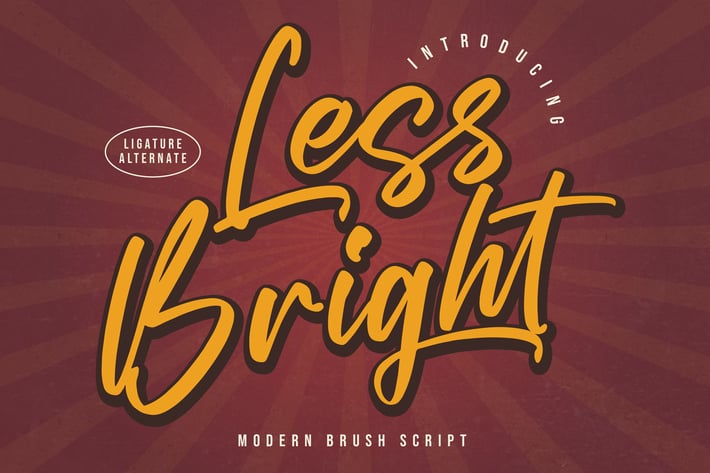
Less Bright Modern Brush Script Font
Less Bright is a high-energy brush script with bold, textured strokes and a gritty modern vibe. The lively letterforms and confident rhythm deliver instant impact, making headlines shout and logos pop. Perfect when you want that street-smart attitude—loud, fast, and unmistakably hand-painted.
+ Natural brush texture with dynamic contrast
+ Uppercase, lowercase, numerals & punctuation
+ Stylistic alternates/ligatures for organic flow
+ Extended swashes for expressive wordmarks
+ Clean kerning & smooth spacing for pro output
+ Optimized for print and screen at common sizes
+ Impact posters & event flyers
+ Streetwear & apparel prints
+ Sports and gym graphics
+ Barbershop branding & signage
+ Café/food-truck menus
+ Stickers, labels & packaging
+ YouTube thumbnails & channel art
+ Social media headers & ads
+ Music/album covers
+ Bold product or promo banners
Turn up the volume with bold brush energy.